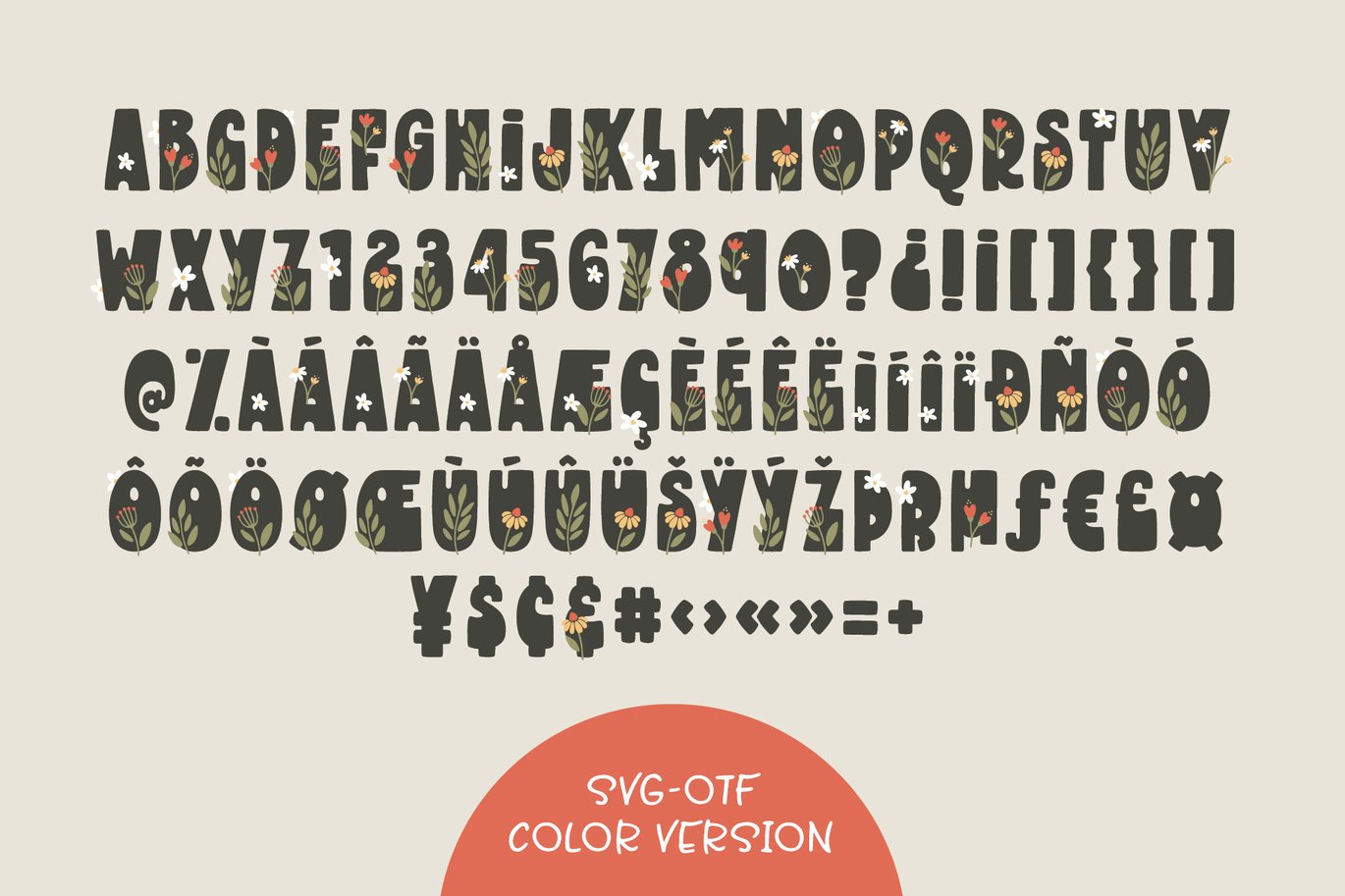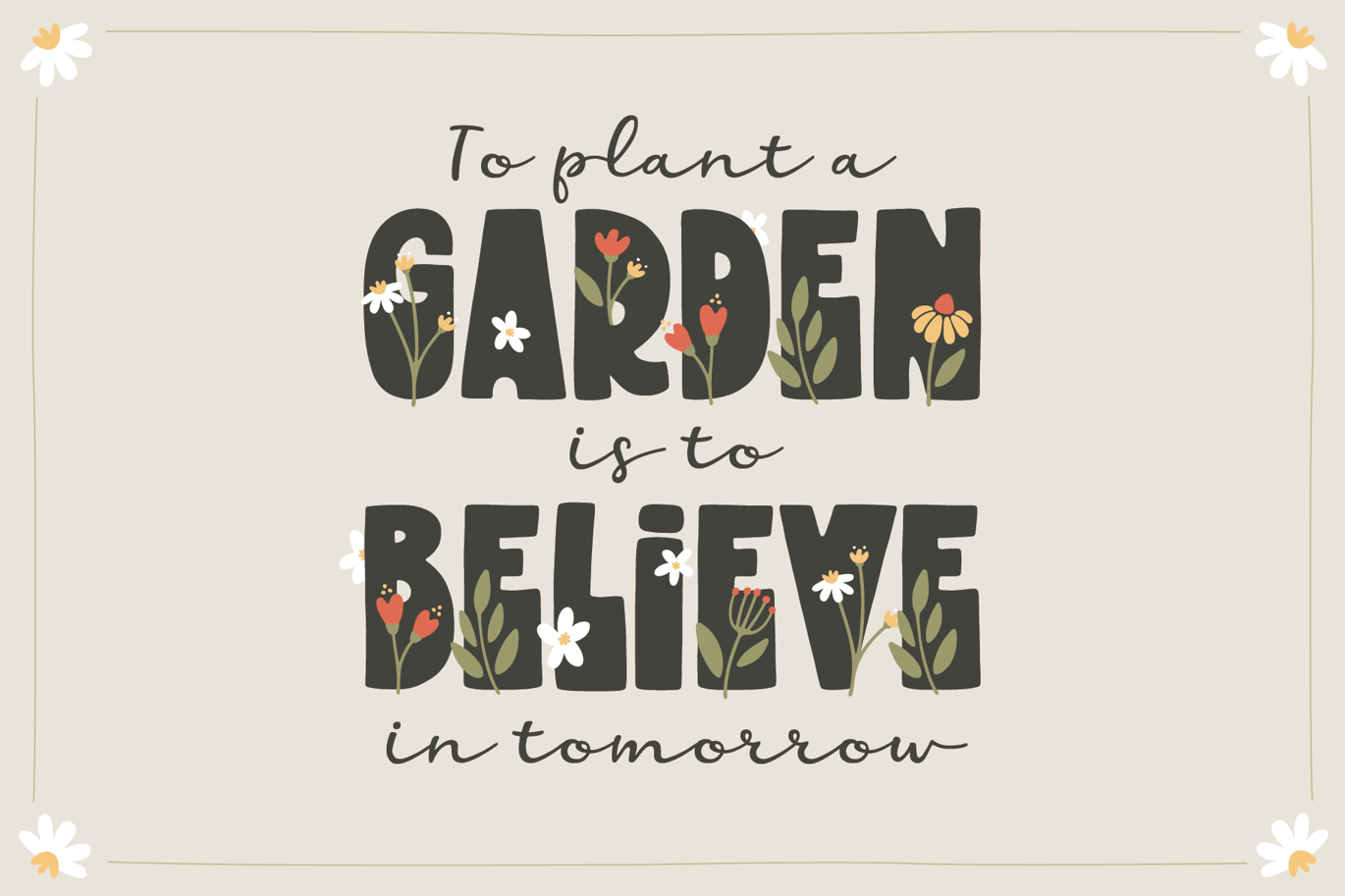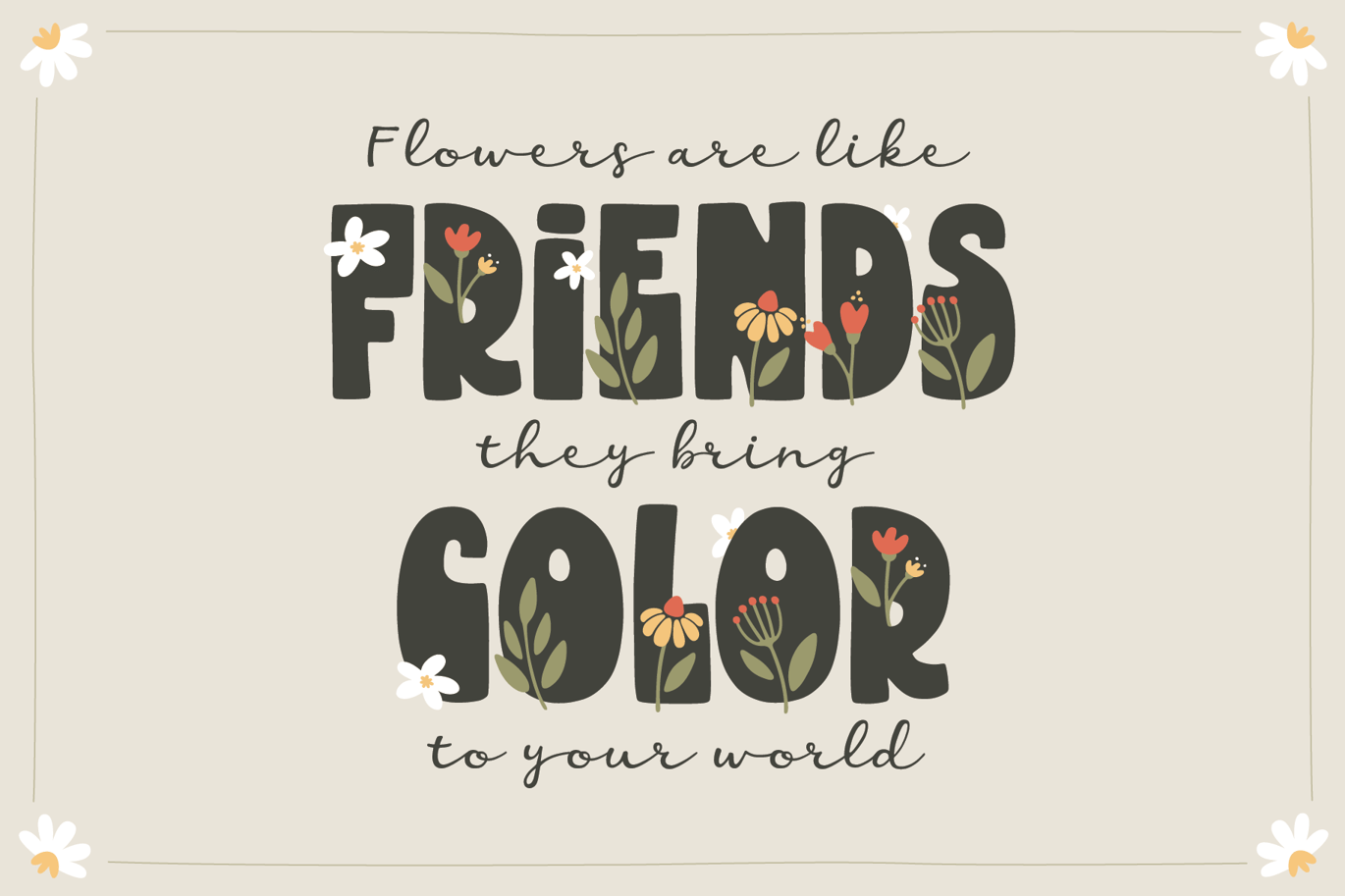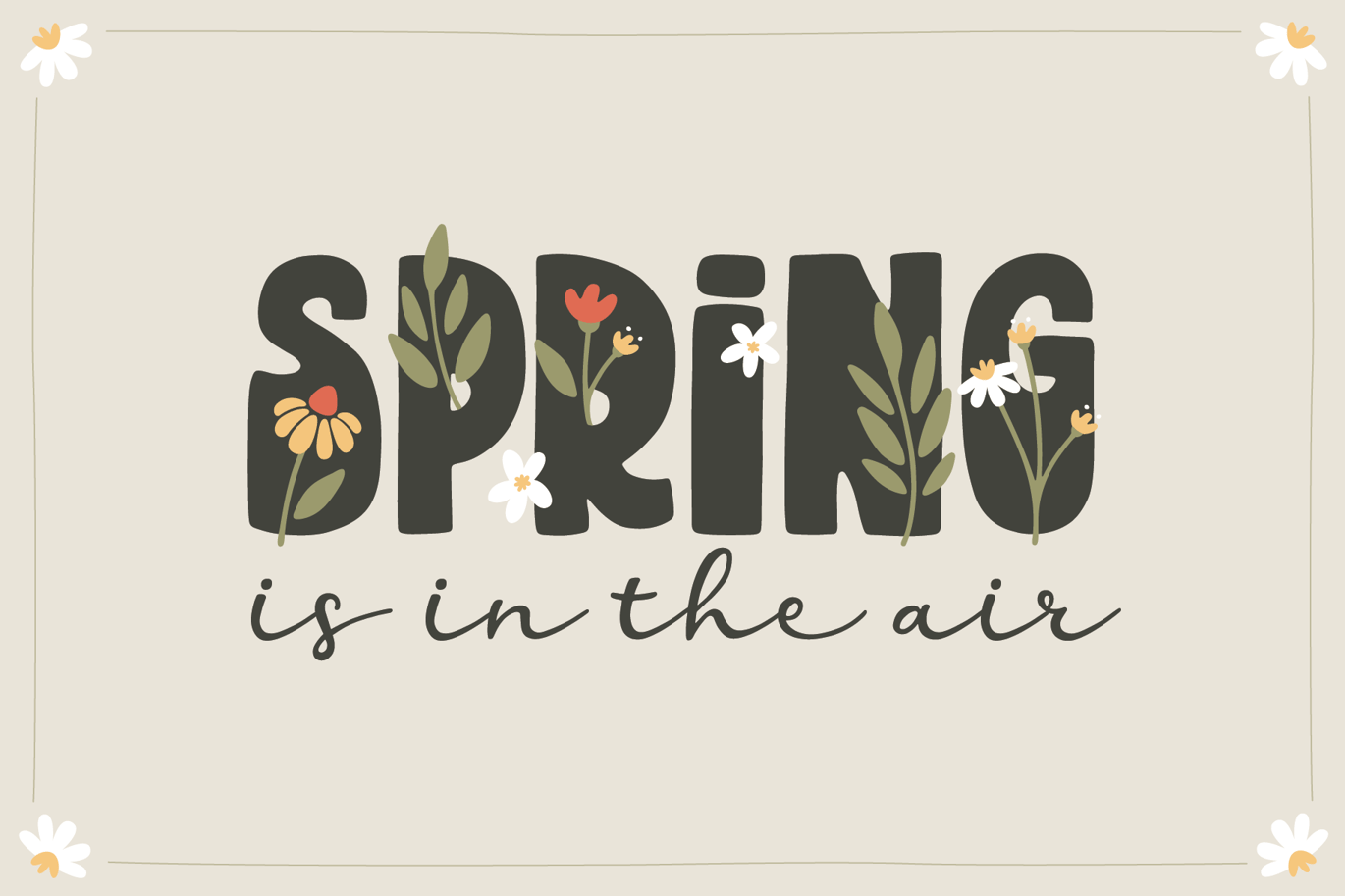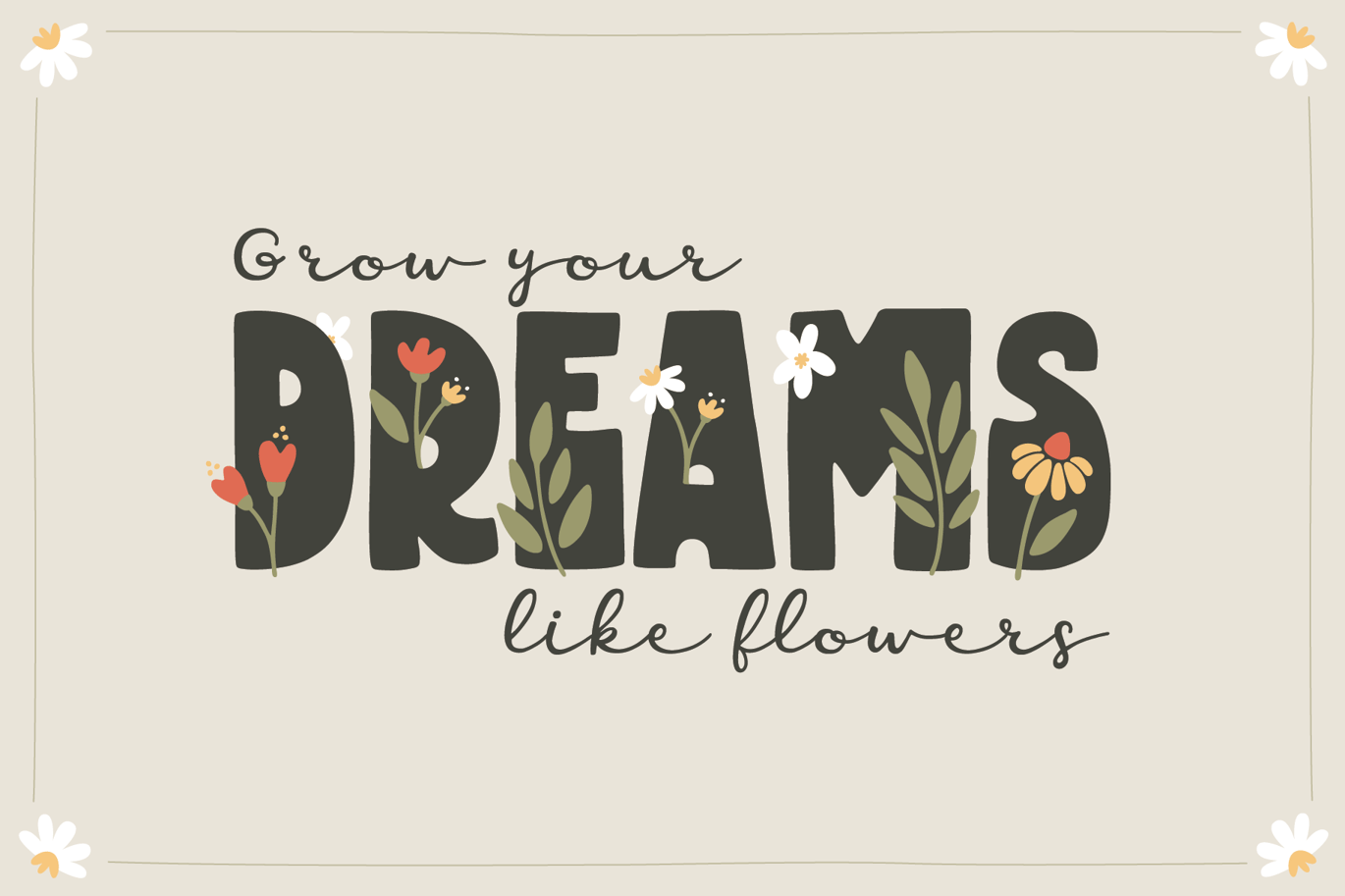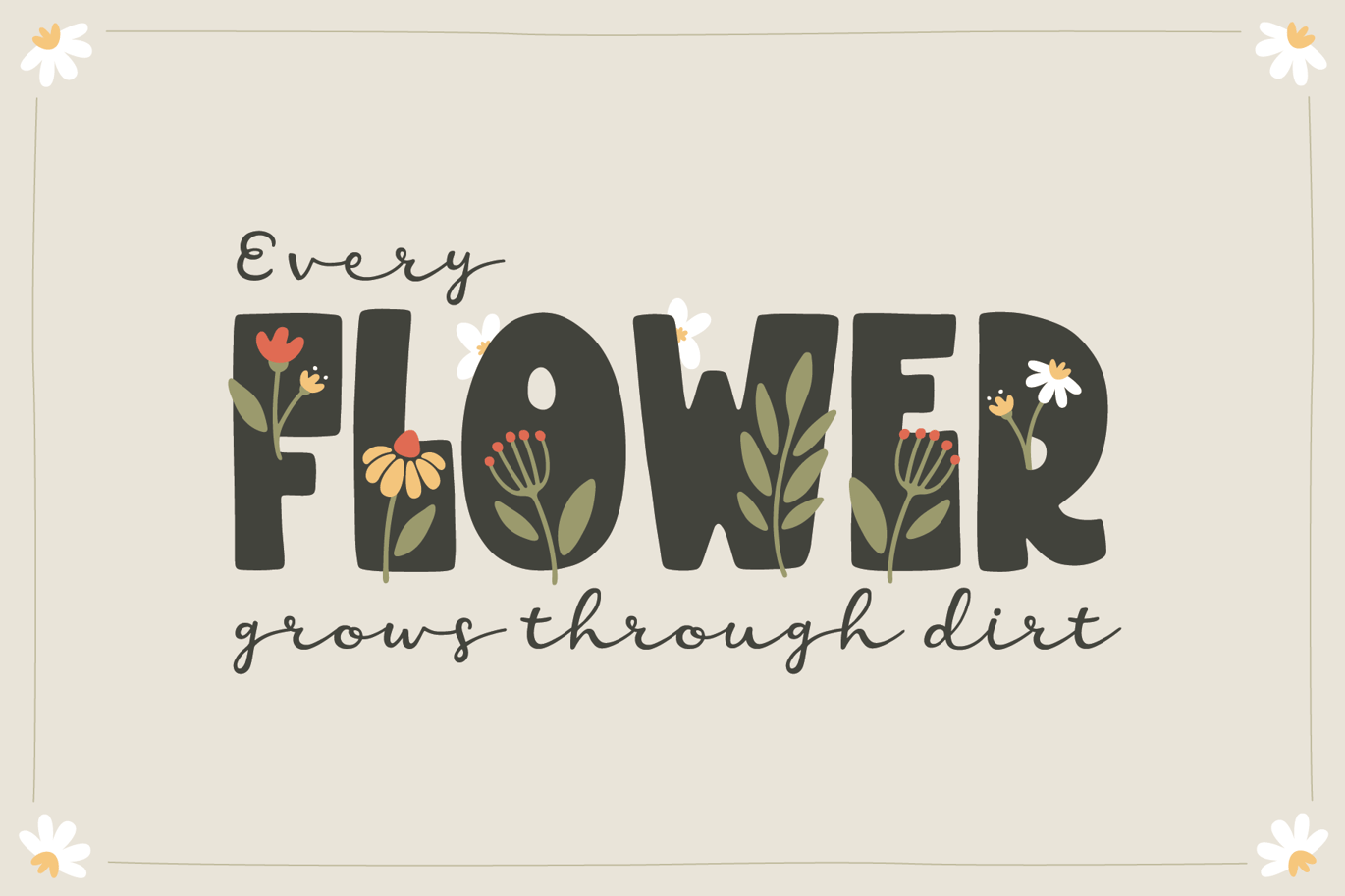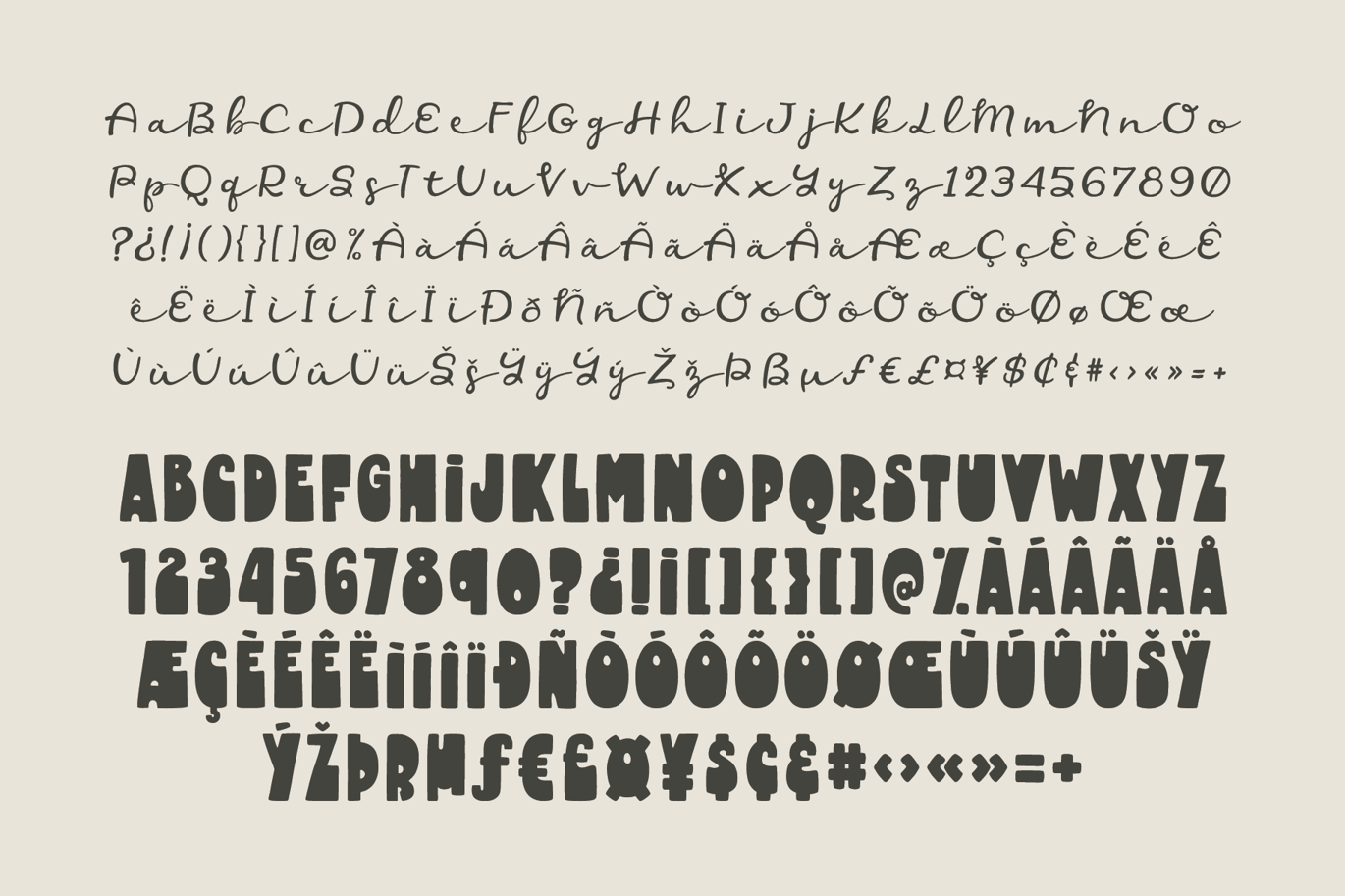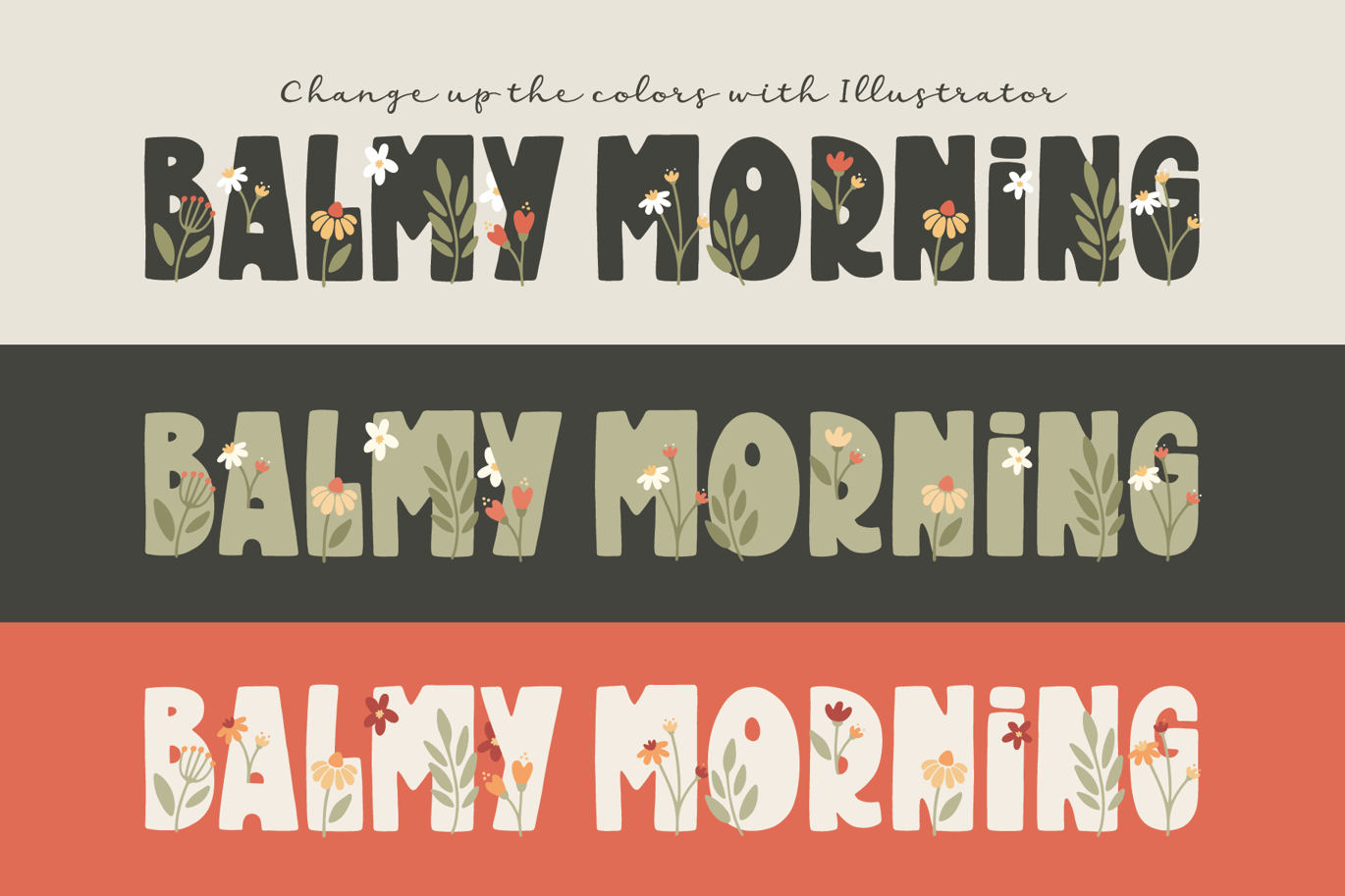
Balmy Morning Font Duo
Balmy Morning is a charming and adorable script font adorned with dainty floral motifs nestled within each letter. This beautiful typeface is perfect for adding a touch of whimsy and elegance to your designs, from invitations and greeting cards to logos and branding.